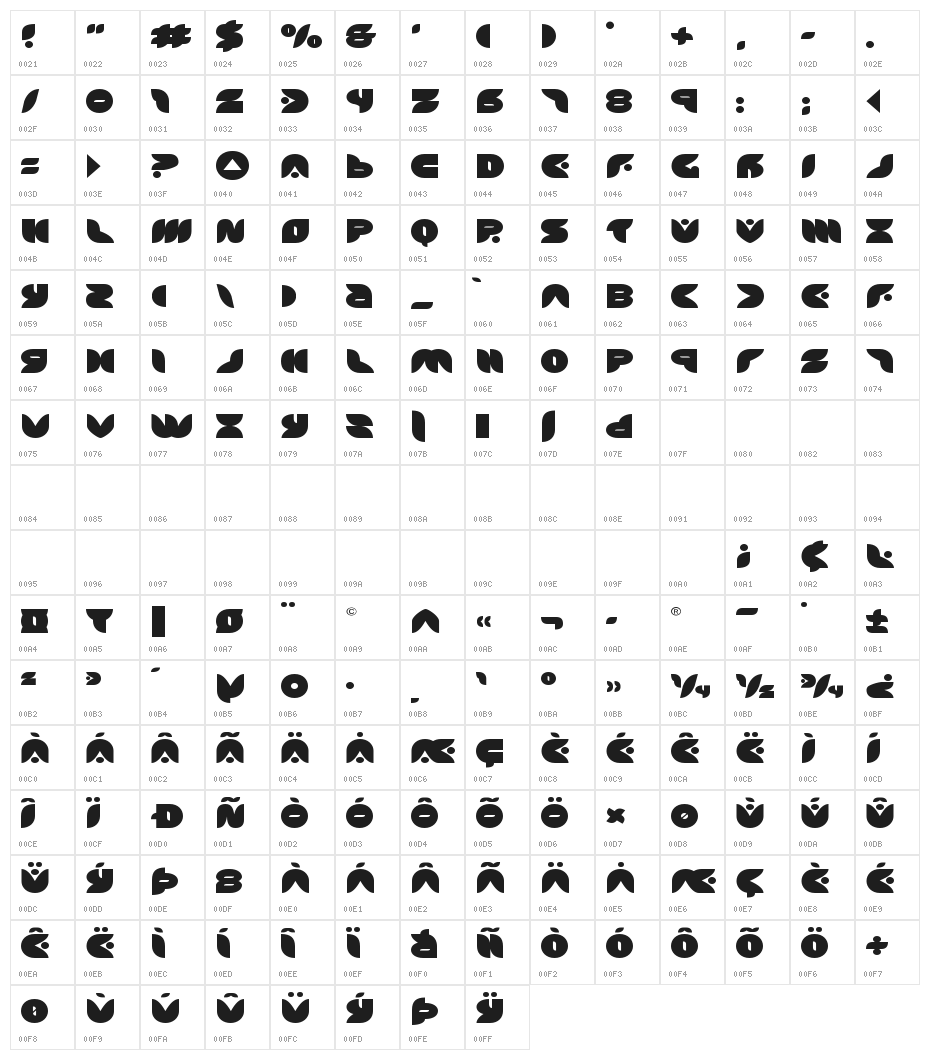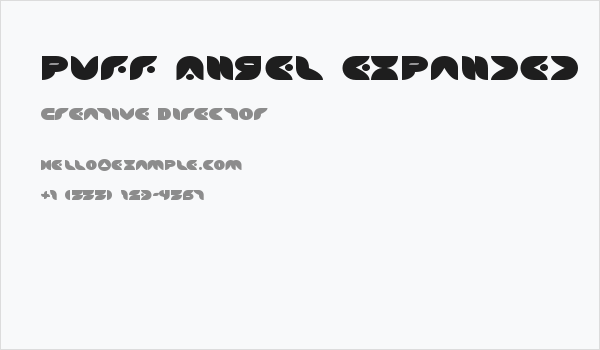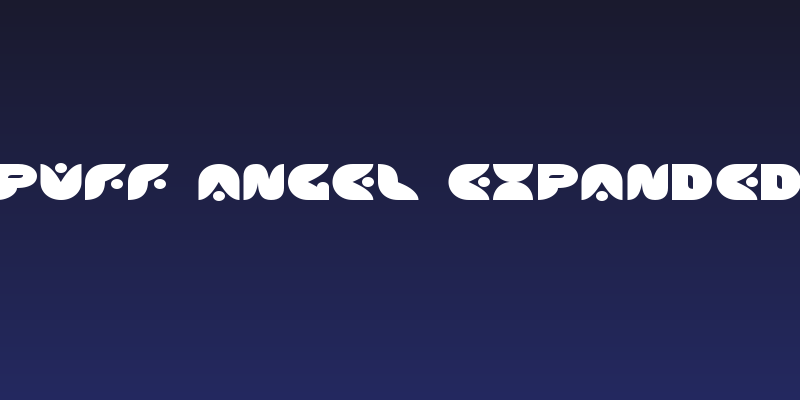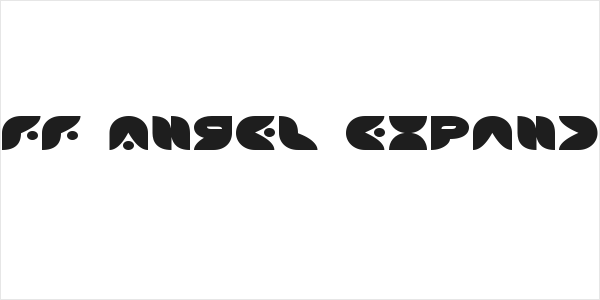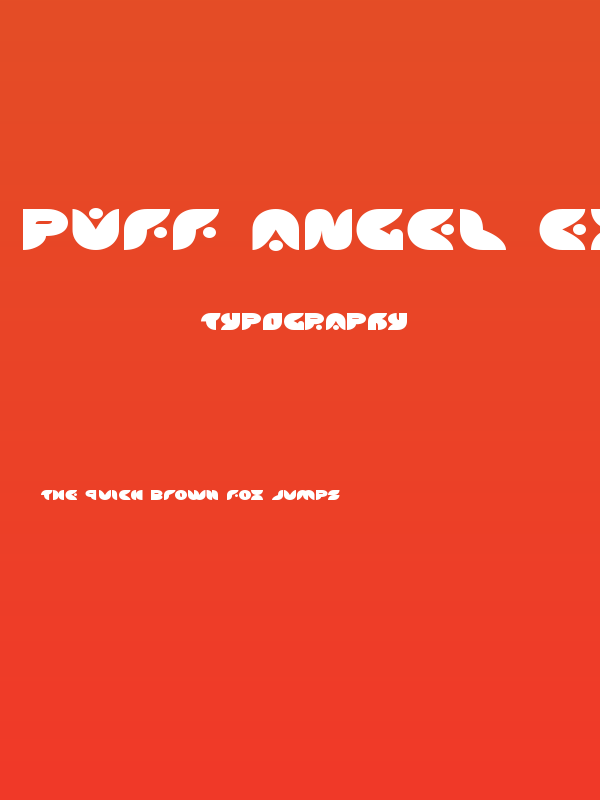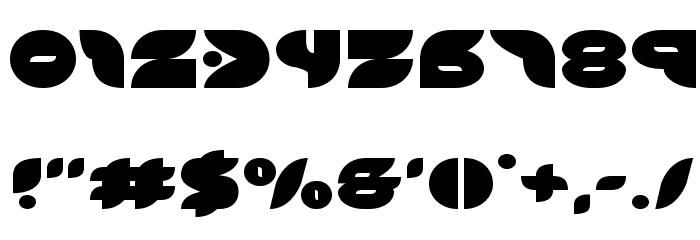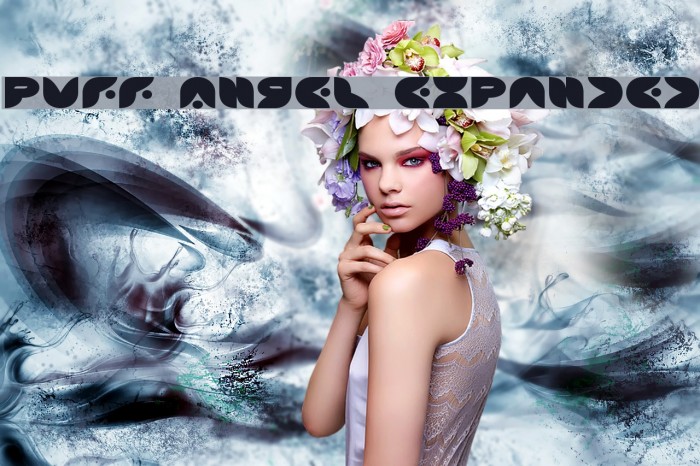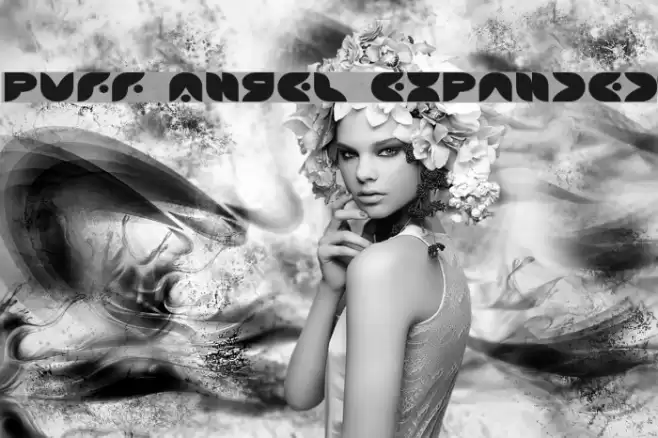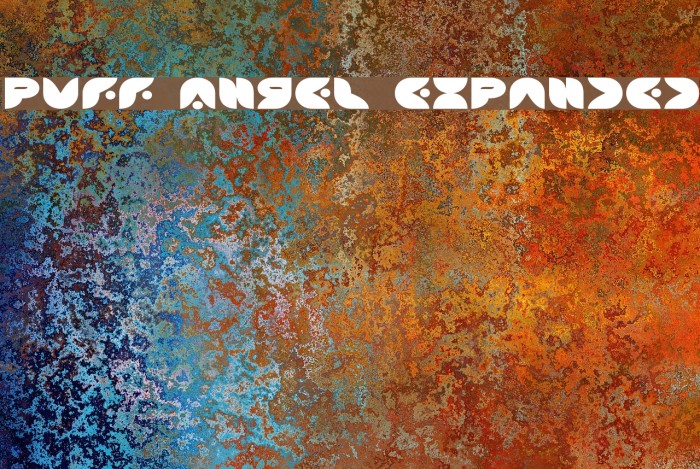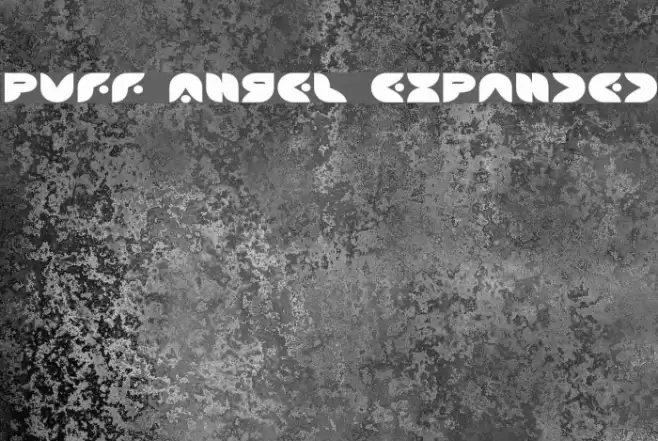
Puff Angel Expanded Font
Puff Angel Expanded Description
This font features a bold and playful design with a distinctly modern and decorative style. Each character is crafted with a unique geometric form, incorporating circular and semi-circular shapes that create a sense of movement and energy. The letters are wide and expansive, giving a strong presence on the page. The font's thick strokes and rounded edges contribute to its bold appearance, making it ideal for attention-grabbing designs. The characters are evenly spaced, ensuring readability despite their unconventional shapes. This font is perfect for projects that require a fun and dynamic aesthetic.
| Overall Style | Modern, Decorative |
| Proposed Projects | Ideal for posters, logos, branding, and any design needing a bold, playful touch. |